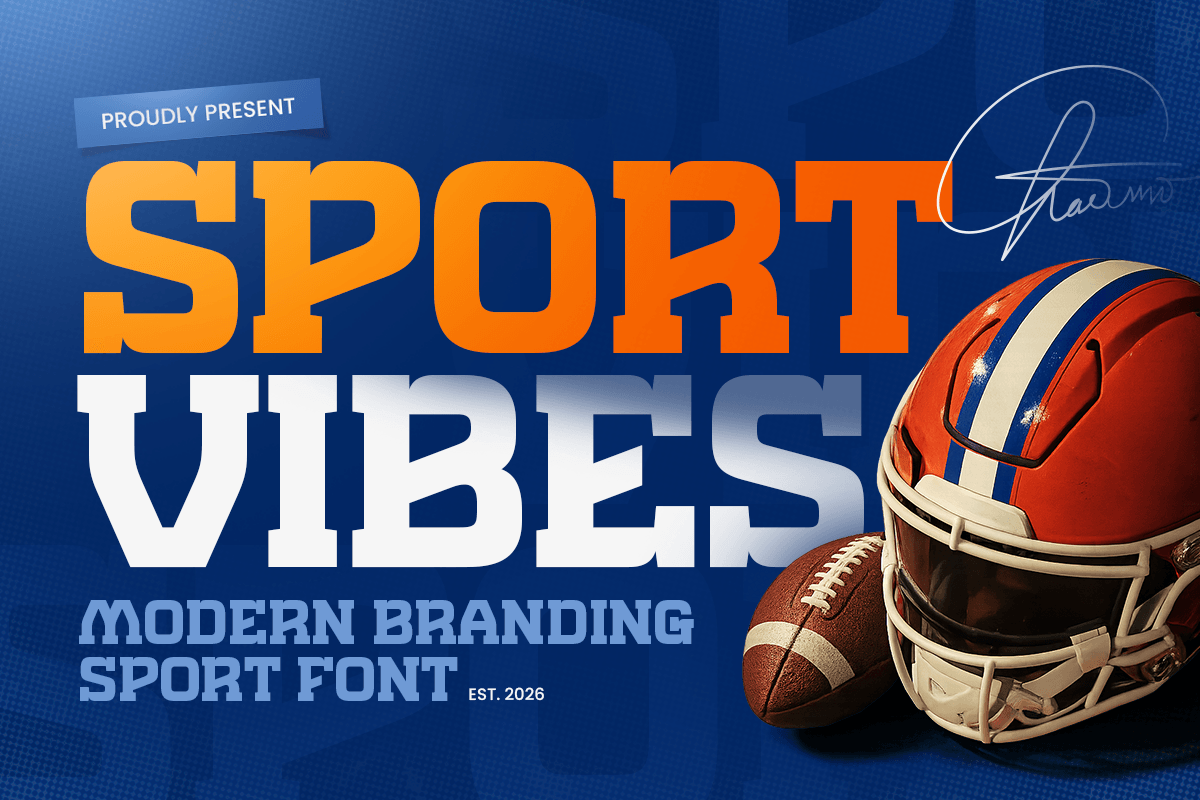
Sport Vibes
-Modern Branding Sport Font
Sport Vibes - Modern Branding Sport Font
SPORT VIBES is a modern branding sport font designed to deliver energy, strength, and athletic confidence in every letter. With bold structure, clean rhythm, and a dynamic visual personality, this typeface creates a powerful tone that feels competitive, modern, and instantly attention-grabbing.
Built for sports-focused branding, SPORT VIBES works beautifully across team logos, fitness campaigns, tournament posters, event banners, website headers, social media graphics, signage, and promotional visuals. Its strong display structure keeps every headline readable while adding motion, confidence, and high-performance character across both digital and print layouts.
Whether you’re building an athletic identity, launching a sports event, creating fitness marketing assets, or designing bold competitive visuals, SPORT VIBES provides a modern typographic foundation that makes your branding feel energetic, professional, and unforgettable.
Inspiration Behind SPORT VIBES
SPORT VIBES is inspired by modern athletic branding and high-energy sports typography—where movement, strength, and bold visual rhythm define a winning identity. The design focuses on clean sporty structure and dynamic impact to support team branding, fitness campaigns, and competitive headline design.
SPORT VIBES Font Features:
• Modern sport letterforms with bold athletic character
• Perfect for team branding, logos, and performance headlines
• Strong readability for posters, banners, and competitive campaigns
• Dynamic structure for energetic sports typography
• Sports logos, team branding, and athletic identity systems
• Fitness campaigns, tournament posters, and event promotions
• Social media graphics, website headers, and digital sport campaigns
• Signage, banners, and high-energy marketing layouts
• Performance branding, competitive visuals, and bold headline typography